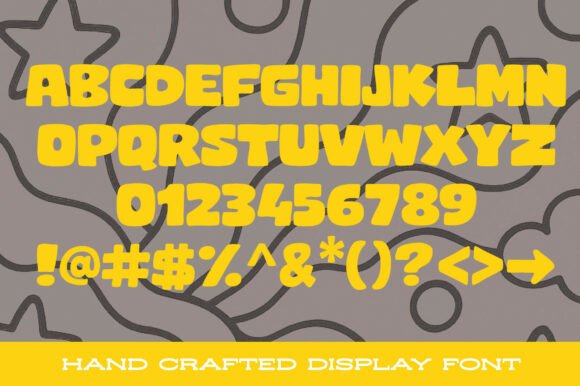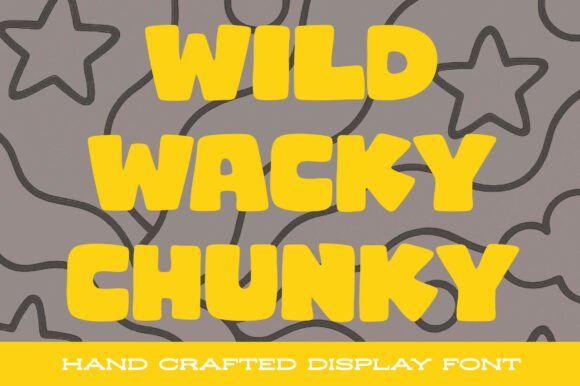
Introducing Chunkaroo Font: The Ultimate Display Font for Playful Designs
Are you tired of using the same old fonts for your designs? Do you want to add a touch of playfulness and personality to your branding, packaging, or marketing materials? Look no further than Chunkaroo Font, a bold, bouncy, and hand-drawn display font that’s sure to make your designs pop.
What is Chunkaroo Font?
Chunkaroo is a unique and eye-catching font that’s perfect for designers and crafters looking to add a dash of fun and whimsy to their work. With its chunky shapes, goofy personality, and rough, organic edges, this font is sure to grab attention and leave a lasting impression.
Every letter in Chunkaroo feels alive, wiggly, and full of movement, giving it a fun, cartoon-style energy that’s hard to ignore. The font’s imperfect lines add charm and authenticity, making every character look like it was drawn with a thick marker by hand.
Perfect for Playful Branding and Designs
Chunkaroo Font is perfect for a wide range of design applications, including playful branding, kids’ products, bold headlines, stickers, posters, packaging, and anything that needs a loud, happy, hand-crafted feel.
Whether you’re designing a logo for a children’s toy company, creating a fun and playful packaging design for a craft product, or simply want to add some personality to your website or social media graphics, Chunkaroo Font is the perfect choice.
Key Features of Chunkaroo Font
- Bold and Bouncy: Chunkaroo Font is a bold and bouncy font that’s sure to grab attention and add energy to your designs.
- Hand-Drawn: The font’s hand-drawn design gives it a unique and authentic feel that’s perfect for designers and crafters looking for a personal touch.
- Chunky Shapes: The font’s chunky shapes add a fun and playful touch to your designs, making it perfect for kids’ products and playful branding.
- Rough and Organic Edges: The font’s rough and organic edges give it a natural, hand-crafted feel that’s perfect for designs that need a personal touch.
- Imperfect Lines: The font’s imperfect lines add charm and authenticity, making every character look like it was drawn with a thick marker by hand.
How to Use Chunkaroo Font
Here are a few tips for using Chunkaroo Font:
- Use it for Headlines: Chunkaroo Font is perfect for bold headlines and titles. Use it to add a touch of personality to your website or marketing materials.
- Pair it with Other Fonts: Chunkaroo Font pairs well with other fonts, such as sans-serif fonts or script fonts. Experiment with different font combinations to find the perfect look for your design.
- Use it for Branding: Chunkaroo Font is perfect for playful branding, such as logos, packaging, and marketing materials.
Chunkaroo Font is a unique and eye-catching display font that’s perfect for designers and crafters looking to add a touch of playfulness and personality to their work. With its bold and bouncy design, hand-drawn feel, and imperfect lines, this font is sure to grab attention and leave a lasting impression.